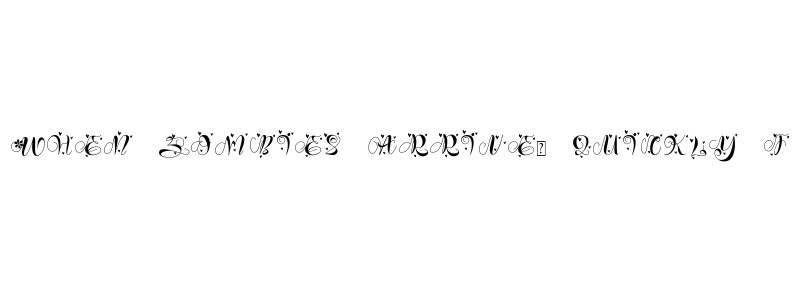
Love Flower Monogram
Love Flower Monogram is an elegant and dainty handwritten font that features sweet and delicate swashes. This original look will appeal to a wide range of crafty ideas, from letterheads and titles, to stationery.
• beautiful character